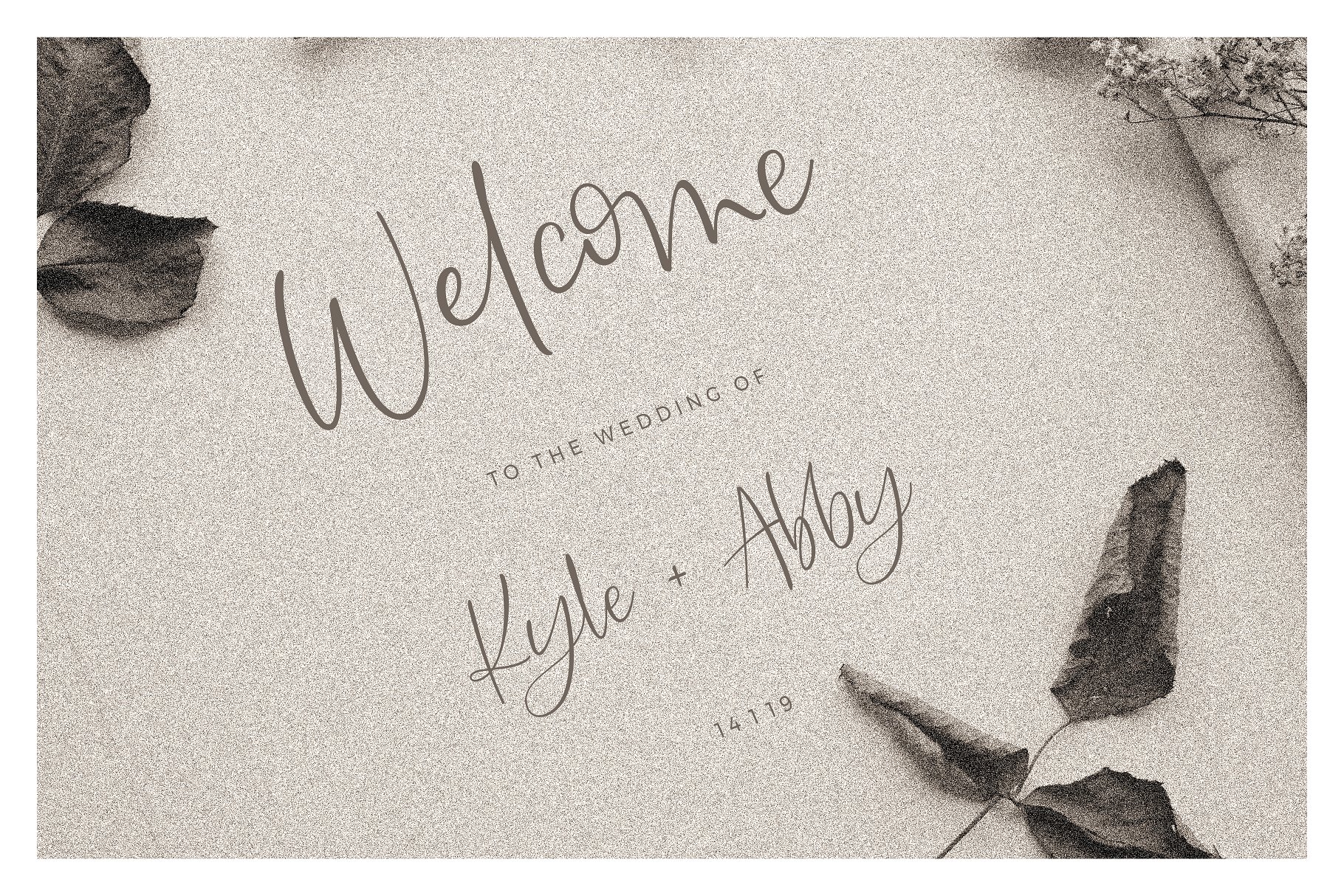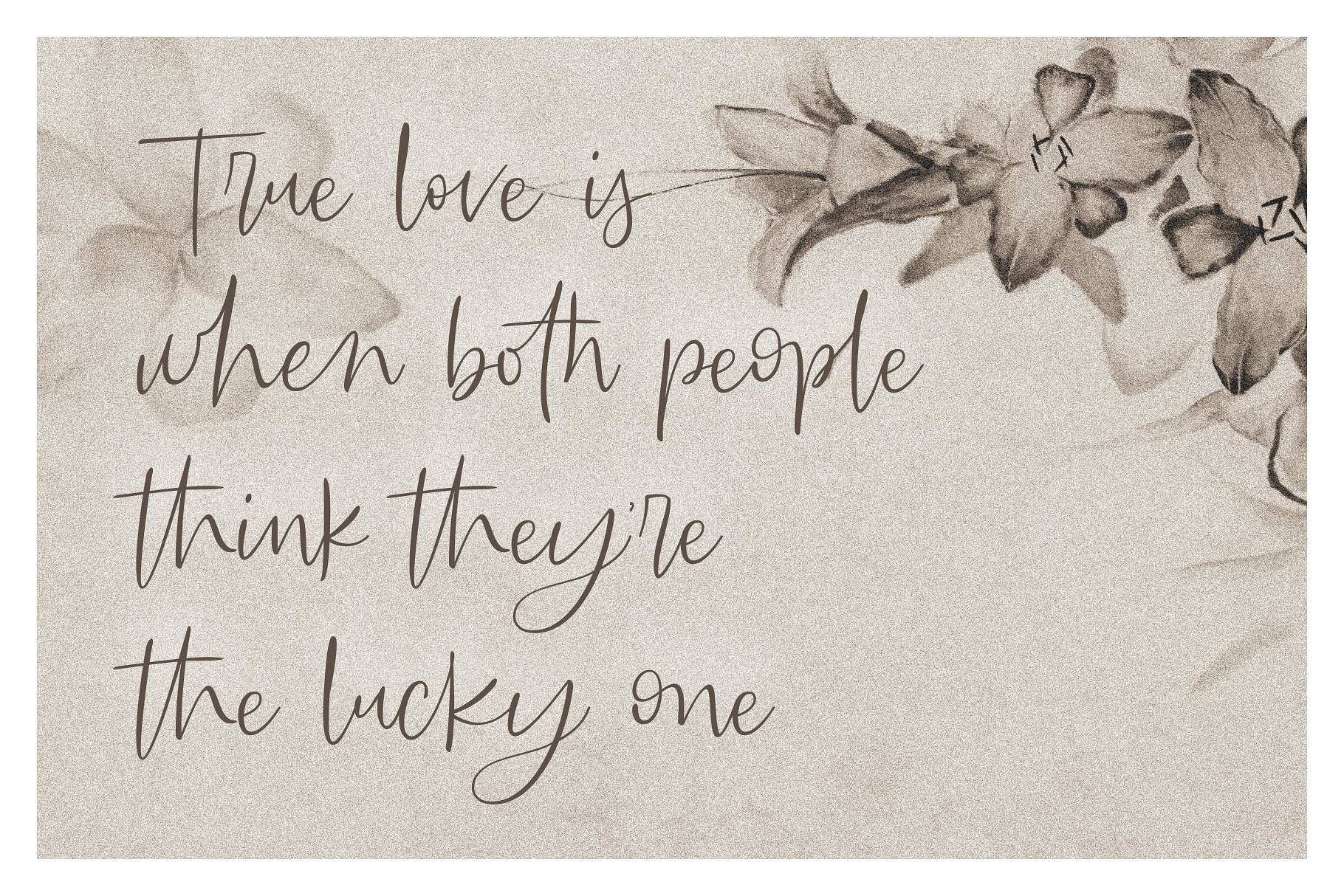
Searches Handwritten Font
Searches Handwritten Font – Free Demo
Hello There! Introducing Searches Font. Searches Handwritten Font is a bold messy with lovely movements and Comes with 92 ligatures, numbers, punctuation, alternates, ligatures and it also supports other languages. Very suitable for greeting cards, branding materials, business cards, quotes, posters, and more!This font are perfect for wedding postcard. Or you can create perfect and unique design of your logo, blog, stationery, marketing, magazines and more.